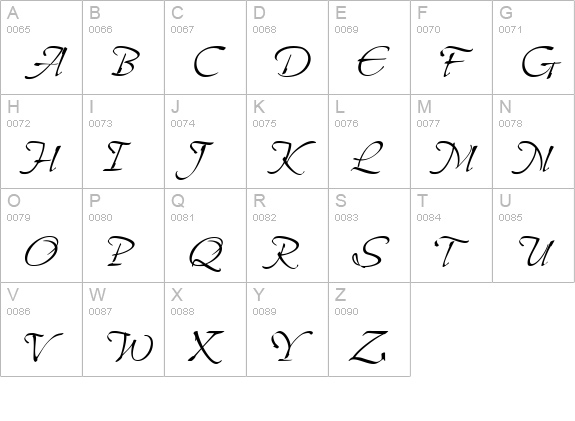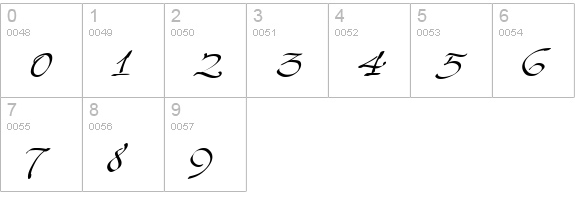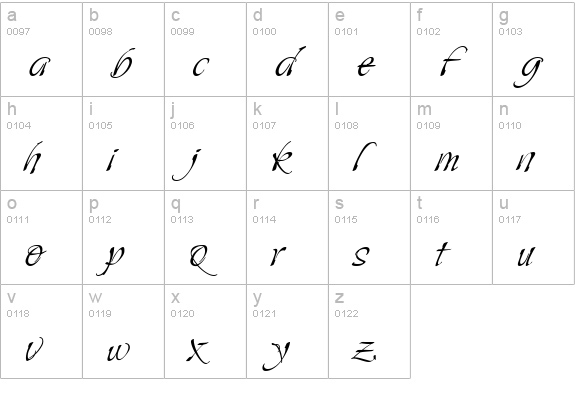
Saliere Font Details
Saliere font is a stunning display font that exudes elegance and sophistication. With its graceful letterforms and delicate curves, Saliere adds a touch of refinement to any design project. This font is ideal for creating eye-catching headlines, logos, invitations, and more. What sets Saliere font apart is not only its beauty but also its accessibility. It is available for free download at FontsMarket.com, making it easily accessible to designers and creatives everywhere. Whether you're a seasoned professional or just starting out, Saliere font offers a world of possibilities at no cost. The versatility of Saliere font is truly remarkable. It effortlessly adapts to various design styles, from classic to modern, ensuring that your creations always make a lasting impression. Its clean and legible letterforms make it readable in both small and large sizes, making it perfect for both print and digital applications. Saliere font's extensive character set includes uppercase and lowercase letters, numerals, punctuation marks, and special glyphs. This comprehensive range allows you to fully express your creativity and adds a touch of uniqueness to your designs. Whether you're designing a logo for a high-end brand, creating elegant wedding invitations, or adding a sophisticated touch to a magazine spread, Saliere font is the perfect choice. Its timeless beauty and free availability make it an invaluable asset in any designer's toolkit. Download Saliere font for free at FontsMarket.com and unlock a world of elegance and sophistication. Elevate your designs with this exquisite typeface and let it captivate your audience with its timeless charm.